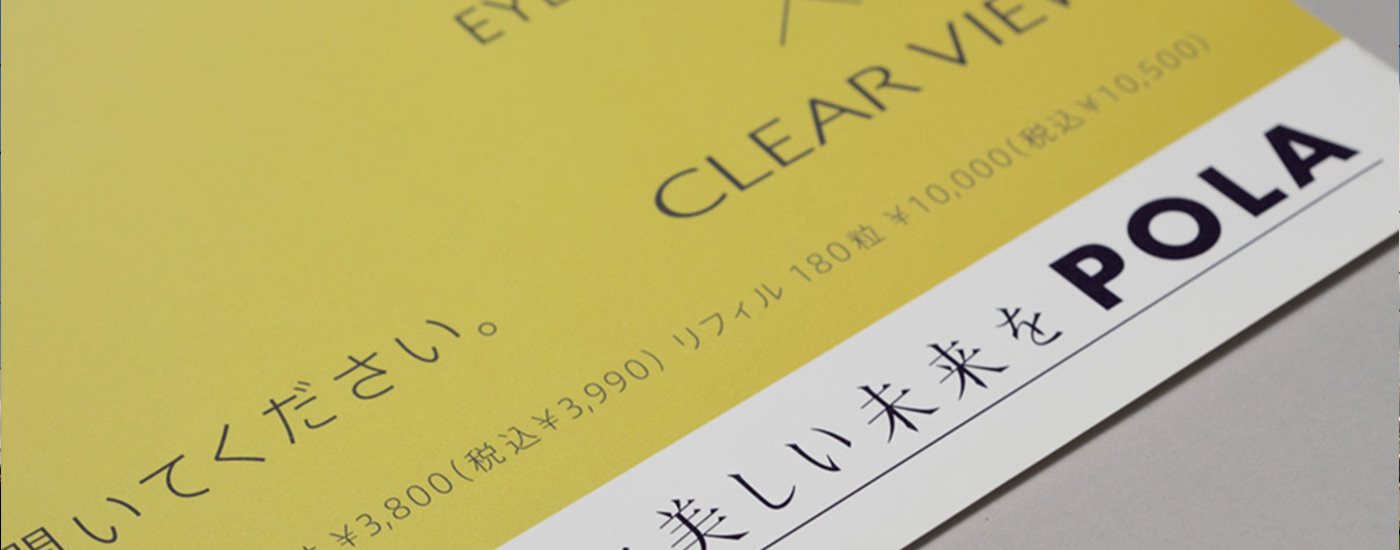
A Font that Supports Visual Identity and Conveys a Sense of Commonality
POLA declared 2002 as its year of re-establishment, and initiated the restructuring of its brand. The corporate philosophy of ‘Pola Value’ was summarized with three key phrases indicating the company’s provision of value to the customer: Respect for the individual, Superlative hospitality, and the Pursuit of premium quality. This sales locale-integrating value sensibility is now bearing fruit with the development of a new business style, exemplified by the motto ‘Pola the Beauty’.
Concurrently, a reexamination of the company’s visual identity (VI) was carried out as well. The tone and style of the photography of Pola’s product line, the handling of illustrations, layout rules and the like were all standardized with specific design rules.
According to Satoshi Arita who was the branding project leader at the time, “Typefaces are an important factor in VI. If the product planning, advertising and marketing divisions are all using typefaces that give off different impressions, the brand will lose its distinctiveness, and the message we want to convey will not reach the customer. But above and beyond that, we had a sense of unease that it would not even be possible to arrive at a single typeface that could be used both for our marketing tools and to create advertisements that would express the our brand’s worldview. We needed a highly versatile typeface that could be applied in all forms of media.”
In 2005, POLA began using AXIS Font for the transmission of customer-targeted information across the board, employing a uniform typeface for diverse forms of information presented via all types of media, from printed materials to the internet.
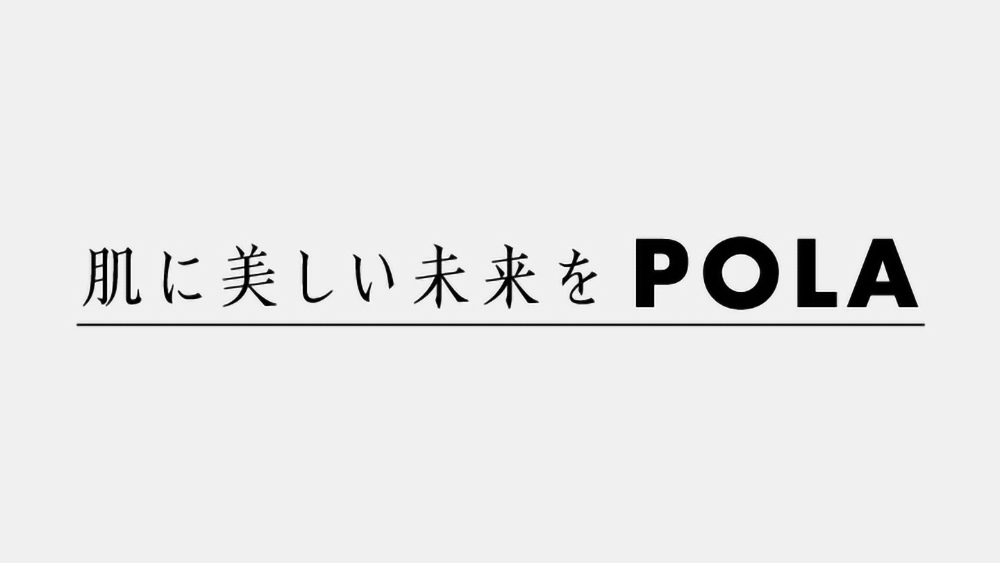
“We adopted AXIS Font because of its superior readability and versatility, as well as the low cost of implementation. With regard to readability in particular, since it was originally developed for magazine use, the choice was clear. It’s a typeface that your eyes get used to right away, so it’s not tiring to look at. We think of it as a one-of-a-kind font endowed with a look that is both contemporary and erudite, while still being approachable and not cold or aloof. Another aspect we’re grateful for is the full range of appearances and weights available for both the Latin characters and the Japanese characters. Carrying out space adjustments between characters and between lines of text allows for various styles of presentation, and all kinds of possibilities can develop from that. It’s a typeface that can accommodate high-prestige brands and mid-priced brands alike.”
In addition, Type Project created the typeface for POLA’s corporate slogan from 2005 to 2011, ‘Hada ni utsukushii mirai o’ (‘For a beautiful future for the skin’). What we proposed, in line with POLA’s request for characters that would have a high affinity with AXIS Font, was a typeface based on the form of type known as Socho.
Socho (Song typeface) has a history from ancient China that dates back even further than Mincho. Our challenge was to reconstruct a modern-day version that could convey the strength of a tradition that is deeply rooted in the cultural sphere of the Chinese writing system. So we undertook this project with a sense of being oriented toward the future, while maintaining the heritage of history as our base.
The crisp ambiance of that typeface made our message that we want women to be beautiful into something even more powerful. A typeface that was neither in vogue nor old-fashioned, and that actually seemed highly improbable, became the embodiment of the orientation POLA was aspiring to, of tradition and innovation.”